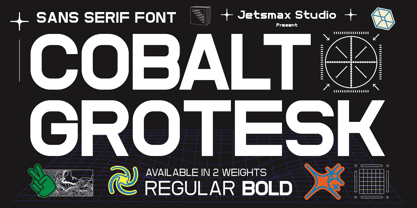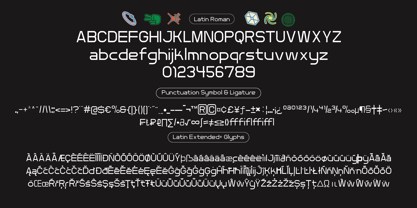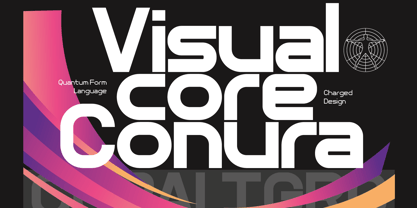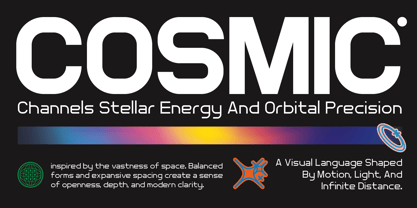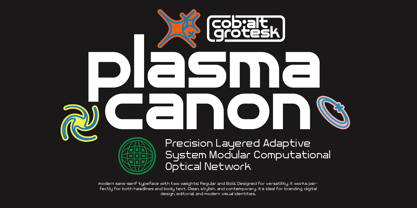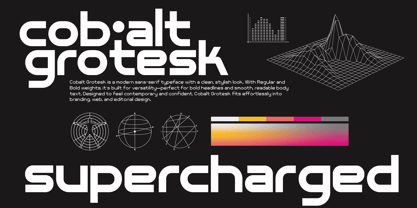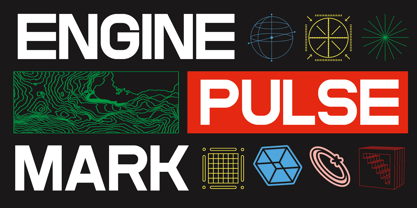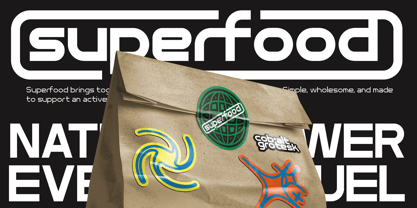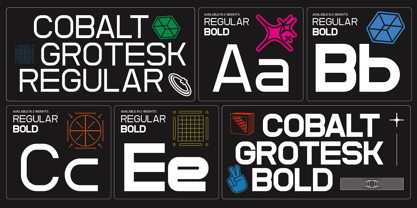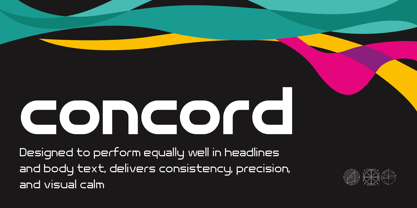
Cobalt Grotesk
by Jetsmax Studio
The Cobalt Grotesk Font Family was designed by Khairil Anwar and published by Jetsmax Studio. Cobalt Grotesk contains 2 styles and family package options. More about this family
Cobalt Grotesk is a modern sans-serif typeface designed with clarity, balance, and contemporary style in mind. Featuring two essential weights—Regular and Bold—it delivers flexibility for both striking headlines and comfortable body text. With its clean grotesk structure and stylish proportions, Cobalt Grotesk feels confident yet neutral, making it suitable for a wide range of uses: branding, editorial layouts, digital interfaces, posters, and web design. The Regular weight offers excellent readability for longer texts, while the Bold adds strong visual emphasis without losing harmony.